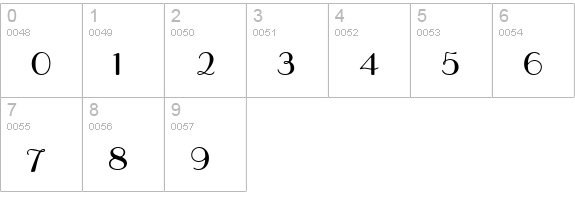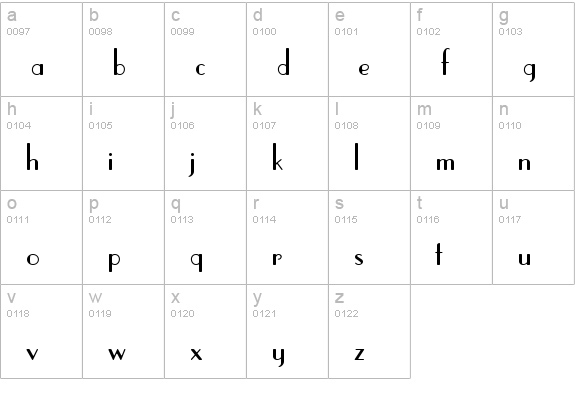
Parisish Font Details
Parisish font is a stunningly elegant and versatile typeface that exudes the charm and sophistication of the city it is named after. With its delicate curves and graceful strokes, this font captures the essence of Parisian style, making it perfect for a wide range of design projects. Whether you're creating invitations, branding materials, or editorial layouts, Parisish font adds a touch of class and refinement to any project. Its timeless design allows it to seamlessly blend with both modern and traditional aesthetics, making it a truly versatile choice. One of the standout features of Parisish font is its extensive character set, which includes a variety of ligatures and stylistic alternates. These additional glyphs give you the freedom to create unique and customized designs that truly stand out. And the best part? Parisish font is completely free! That's right, you can download this exquisite font for no cost at all. Just head over to FontsMarket.com and grab your free copy today. Whether you're a professional designer or a hobbyist, Parisish font is a must-have addition to your font library. So, why wait? Elevate your designs with the timeless beauty of Parisish font. Download it for free at FontsMarket.com and let your creativity soar.